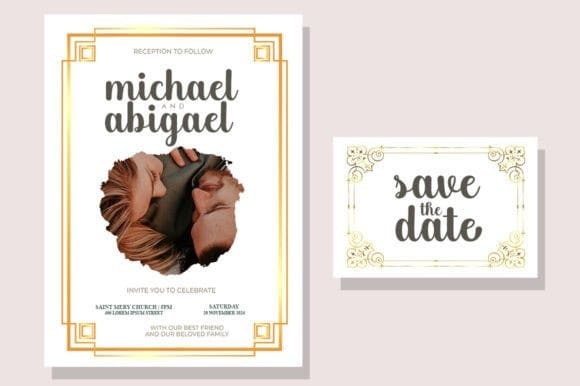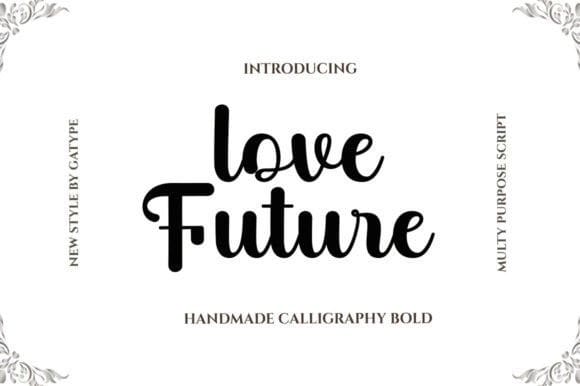
Love Future Font
Love Future Font by Gatype 14,280 downloads
Love Future Font
Love Future Font is a bold script font with an elegant, simple and slightly vintage look. Add it confidently to your projects, and you will love the results. This font is PUA encoded which means you can access all of the glyphs and swashes with ease!